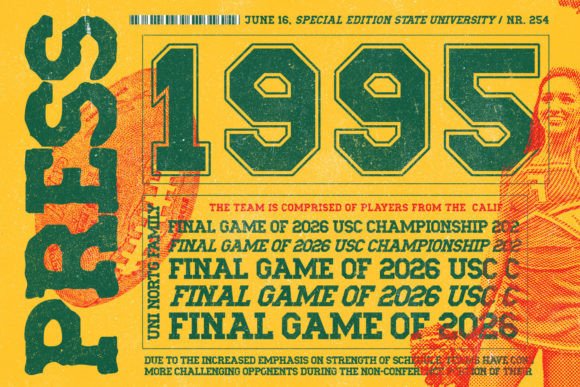
UNI North Font is a handcrafted vintage and slab serif. Inspired by university sports, retro posters, and magazines, postcards, and ads from the 70’s to the ’90s.
The font comes in 9 styles. From Regular to Italic, College variation, and many others.